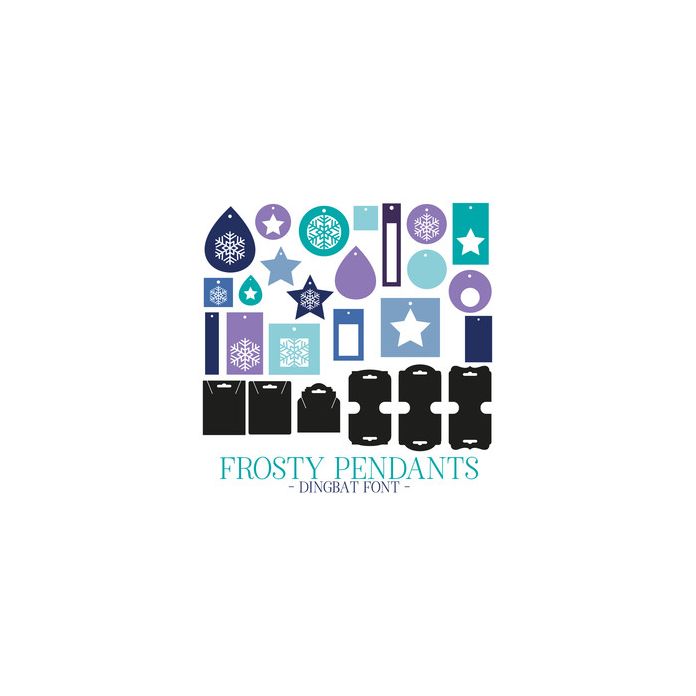
Frosty Pendants Dingbat Font. With 20 pendants and 6 backing cards ready to make your own jewellery. All elements are allocated to upper and lowercase letters.